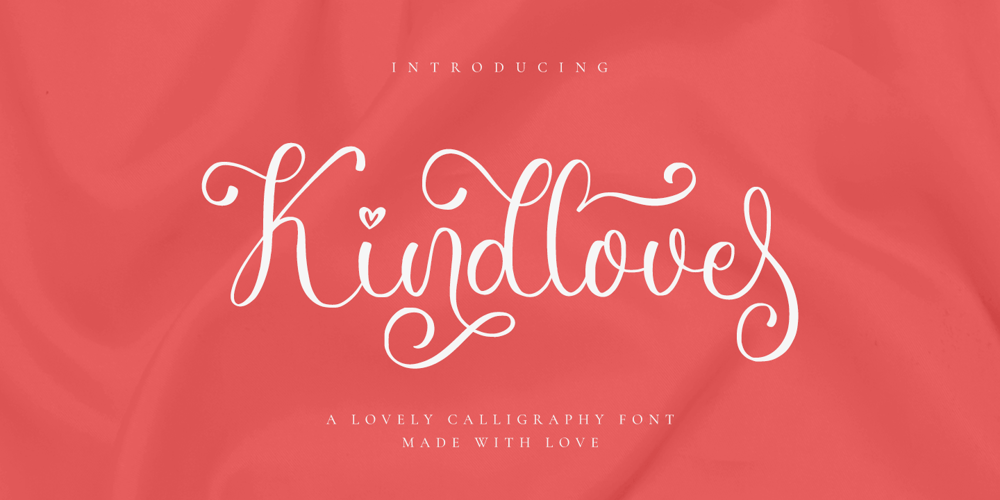
Kindlove
Kindlove font
Kindlove Font Family was designed by Novia Himatunnisa and published by Nissa Nana. Kindlove contains 1 styles and family package options. Kindlove is an equally sophisticated and lovely handwritten font that’s great for delivering any message with confidence, authenticity and charm. It will elevate a wide range of crafting ideas, from cards, to branding, labels and much more.